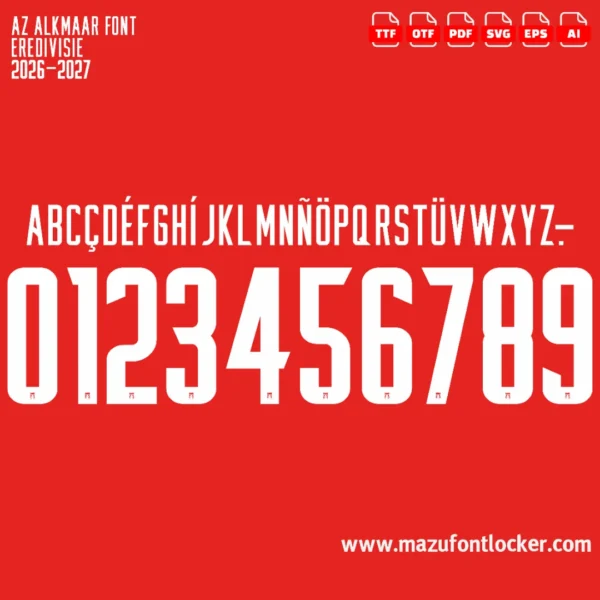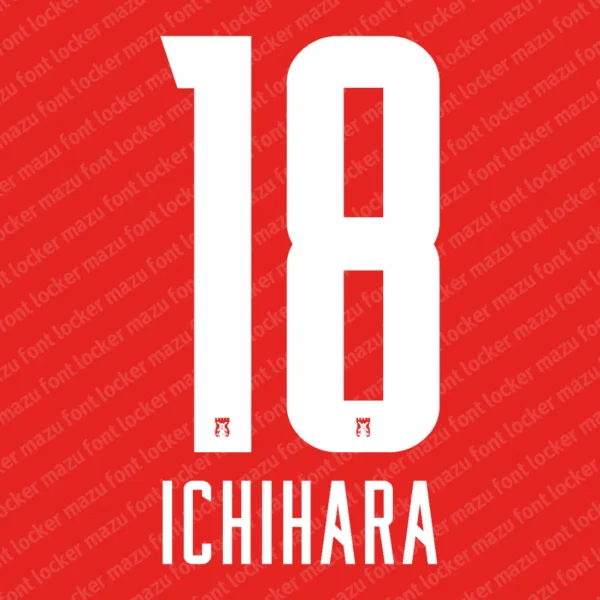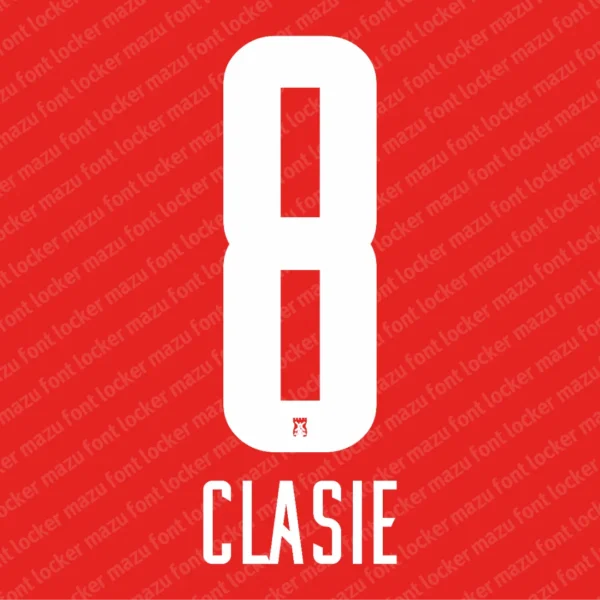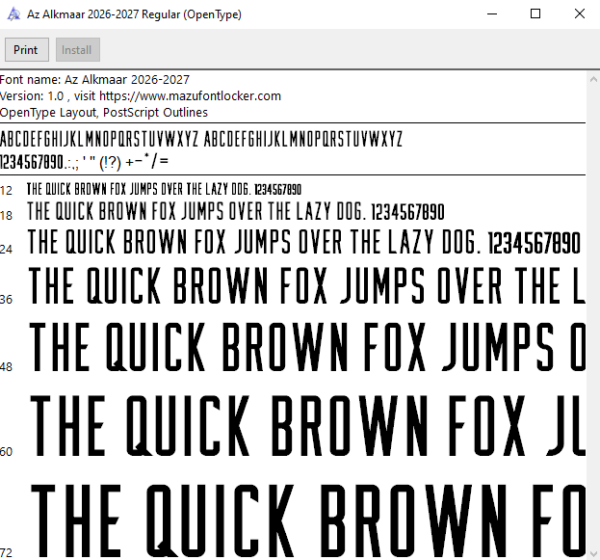
AZ Alkmaar 2026-2027 Font Vector – Stunning Cheeseheads Legacy Typeface
This premium font faithfully recreates the official match lettering worn by AZ Alkmaar during the 2026-2027 season — delivering authentic Alkmaar heritage, fearless Dutch football tradition, dynamic attacking identity, tactical intelligence, exceptional youth development, unwavering championship ambition, and the unmistakable red-and-white pride that continues to establish AZ among the Netherlands’ most respected football clubs.
AZ Alkmaar 2026-2027 Font Vector – Stunning Cheese Farmers Heritage Typeface
The AZ Alkmaar 2026-2027 Font Vector is a premium typeface that accurately recreates the official match lettering worn by AZ Alkmaar during the exciting 2026-2027 season. This high-quality vector font kit captures the clean, modern, and distinctive typography used by one of the Netherlands’ most respected football clubs, perfectly complementing the club’s iconic red-and-white identity. The 2026-2027 season also celebrates 20 years at the AFAS Stadion with a commemorative home kit featuring subtle embossed geometric details inspired by the stadium’s history.
Why Choose AZ Alkmaar 2026-2027 Font Vector
This font stands out thanks to its precise vector construction and authentic club styling. Every character has been carefully recreated to match the official shirt lettering used throughout the 2026-2027 season. Whether you’re producing realistic kit templates or creating eye-catching football content, the AZ Alkmaar 2026-2027 Font Vector delivers a genuine professional appearance.
The lettering featured in the AZ Alkmaar 2026-2027 Font Vector combines bold geometric shapes with clean contemporary proportions. The result is a highly readable and professional design that reflects the ambition, discipline, and attacking philosophy of AZ Alkmaar.
The numerals feature balanced curves, crisp edges, and excellent spacing for maximum readability. Built entirely as scalable vectors, every number remains sharp for jersey customization, digital graphics, posters, and large-format printing.
- Complete uppercase A–Z alphabet and numbers 0–9 in authentic AZ Alkmaar 2026-2027 style
- Includes authentic crest glyph placement beneath player numbers